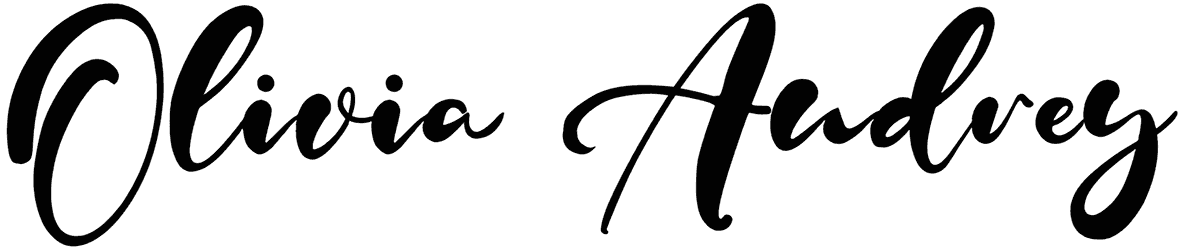
Olivia Audrey Font
When it comes to designing a realistic work, nothing can stand out in a project like our modern handwritten font, Olivia Audrey. It doesn’t have good readability, but this is because of natural brush strokes. This romantic font will easily provide a professional, yet friendly touch for your branding and can also be used for advertisements, product packaging, album covers, shopping bags, and much more.